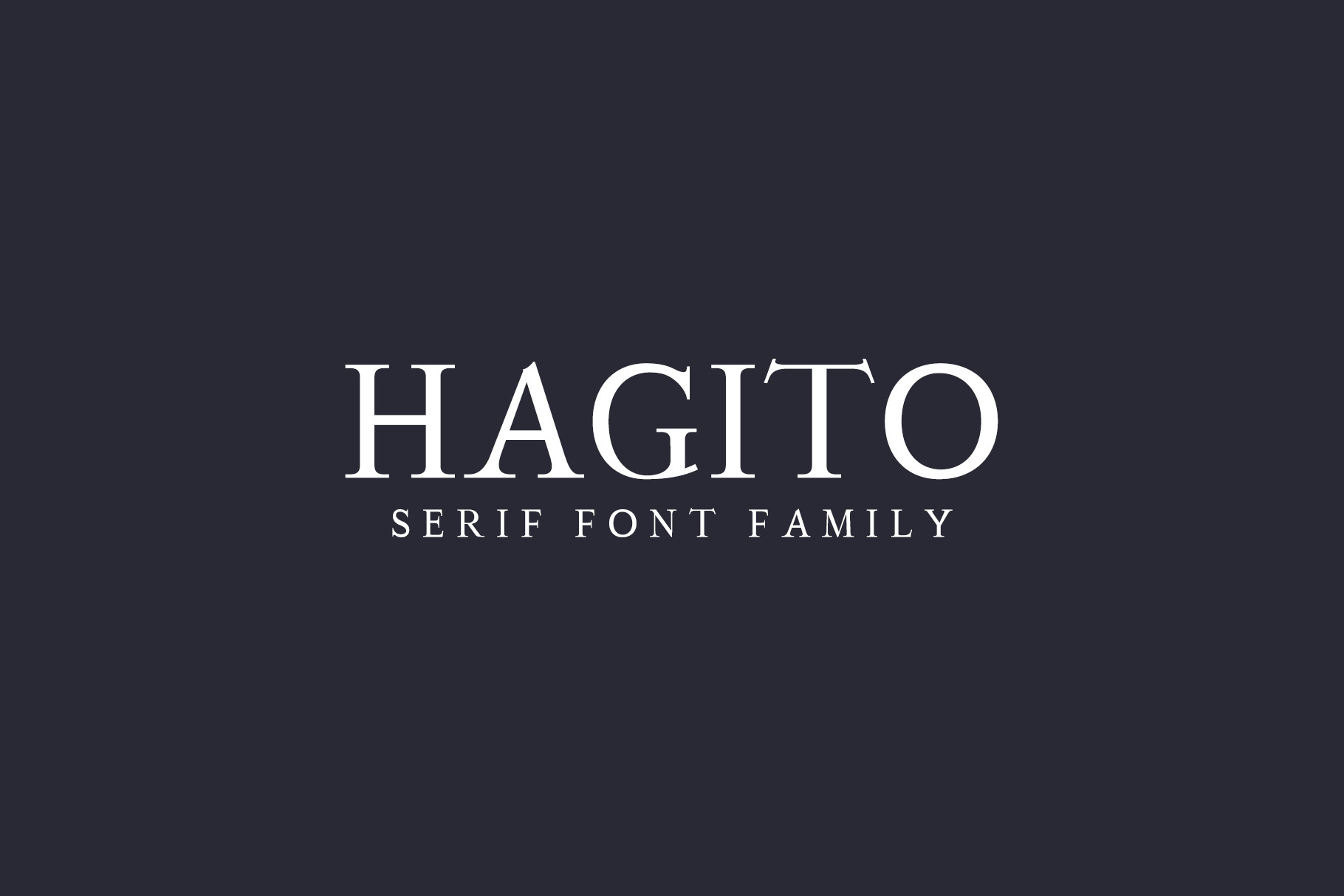
Hagito Serif Font Family Pack
Hagito A Serif Font Family is a strong and fashionable serif font with multiple styles. It has a striking look which makes it perfect for every design that needs to stand out. It features 254 unique glyphs and supports many different languages. Hagito will be great for packaging, presentations, logo, headlines, lettering, posters, branding, quotes, titles, magazines headings, web layouts, advertising, invitations, packaging design, books, and nearly any creative design.
- Font Weight: Regular, Light, Thin and Italics
Hagito Font Features:
- Uppercase Multilingual Letters
- Lowercase Multilingual Letters
- Non English Characters ( Latin Supplement + Latin Extended A)